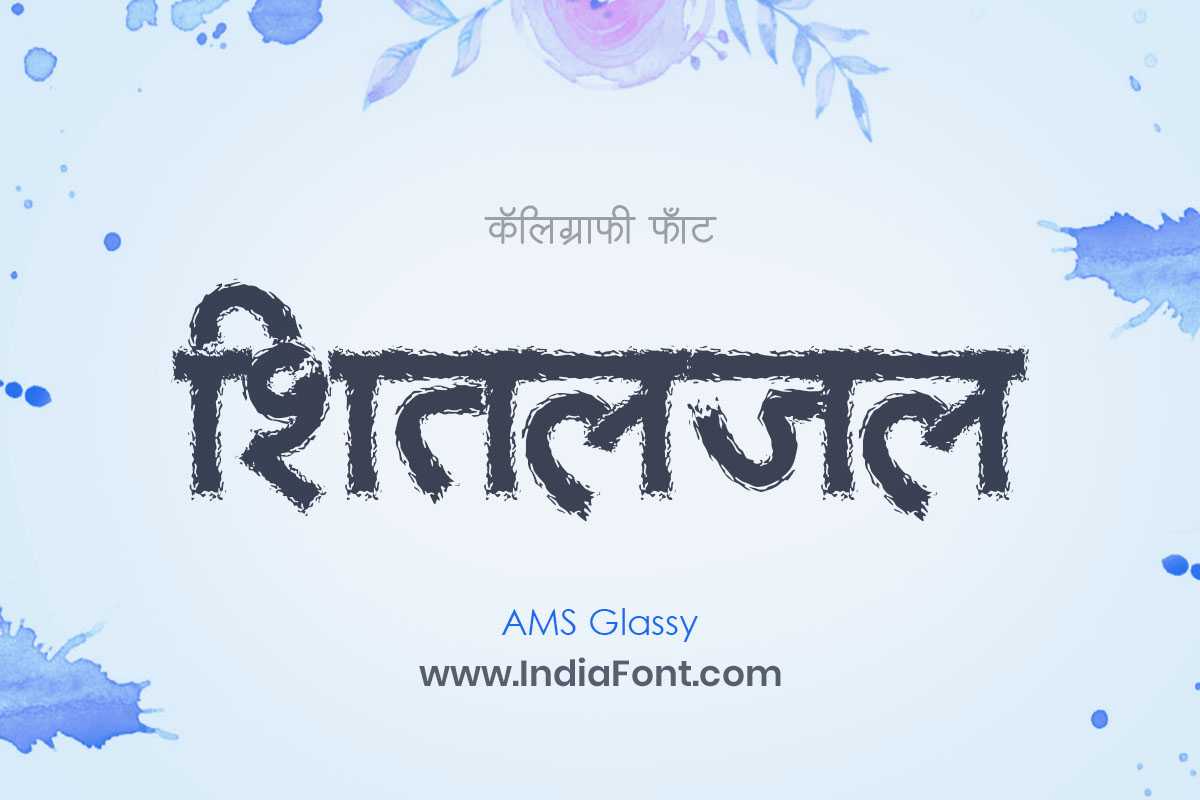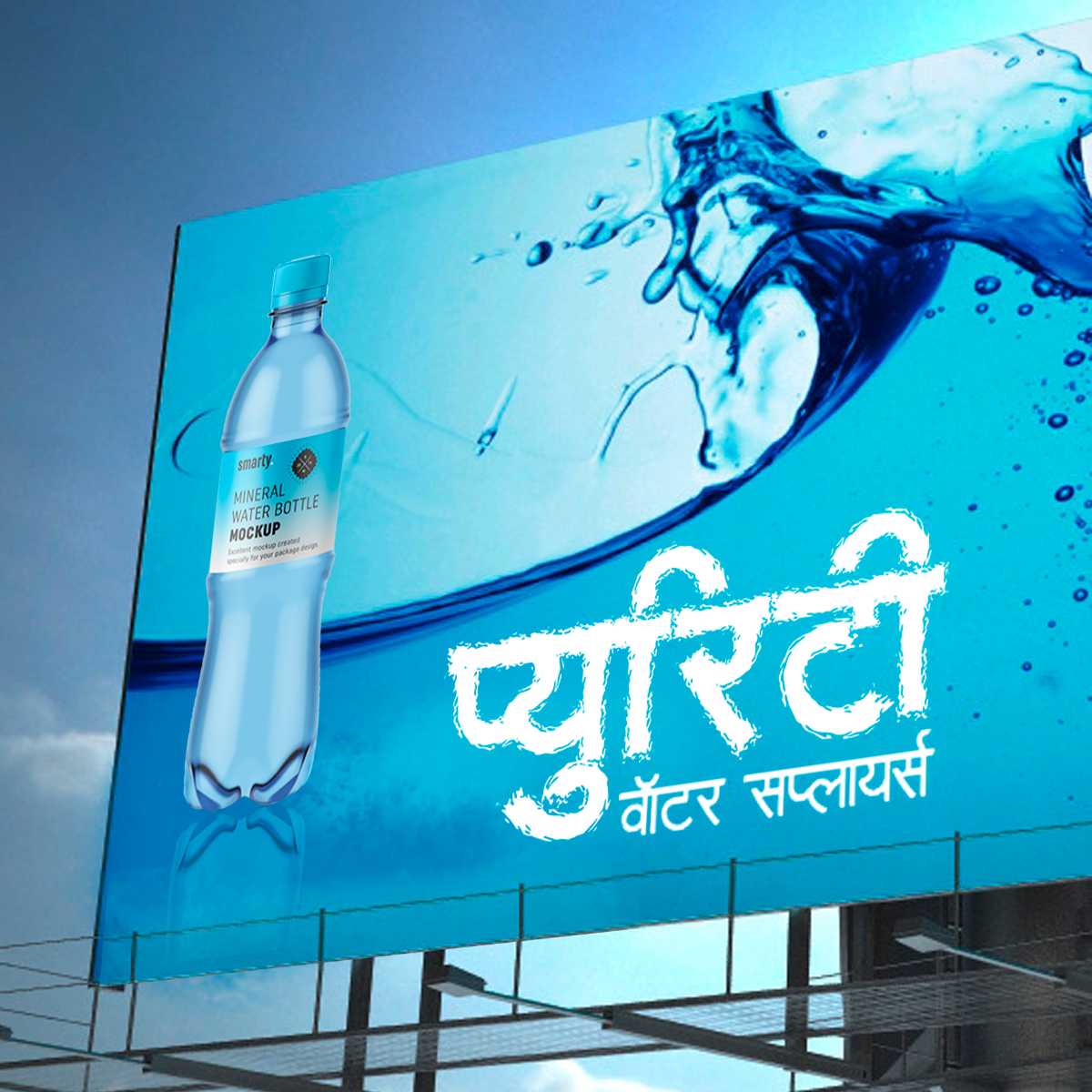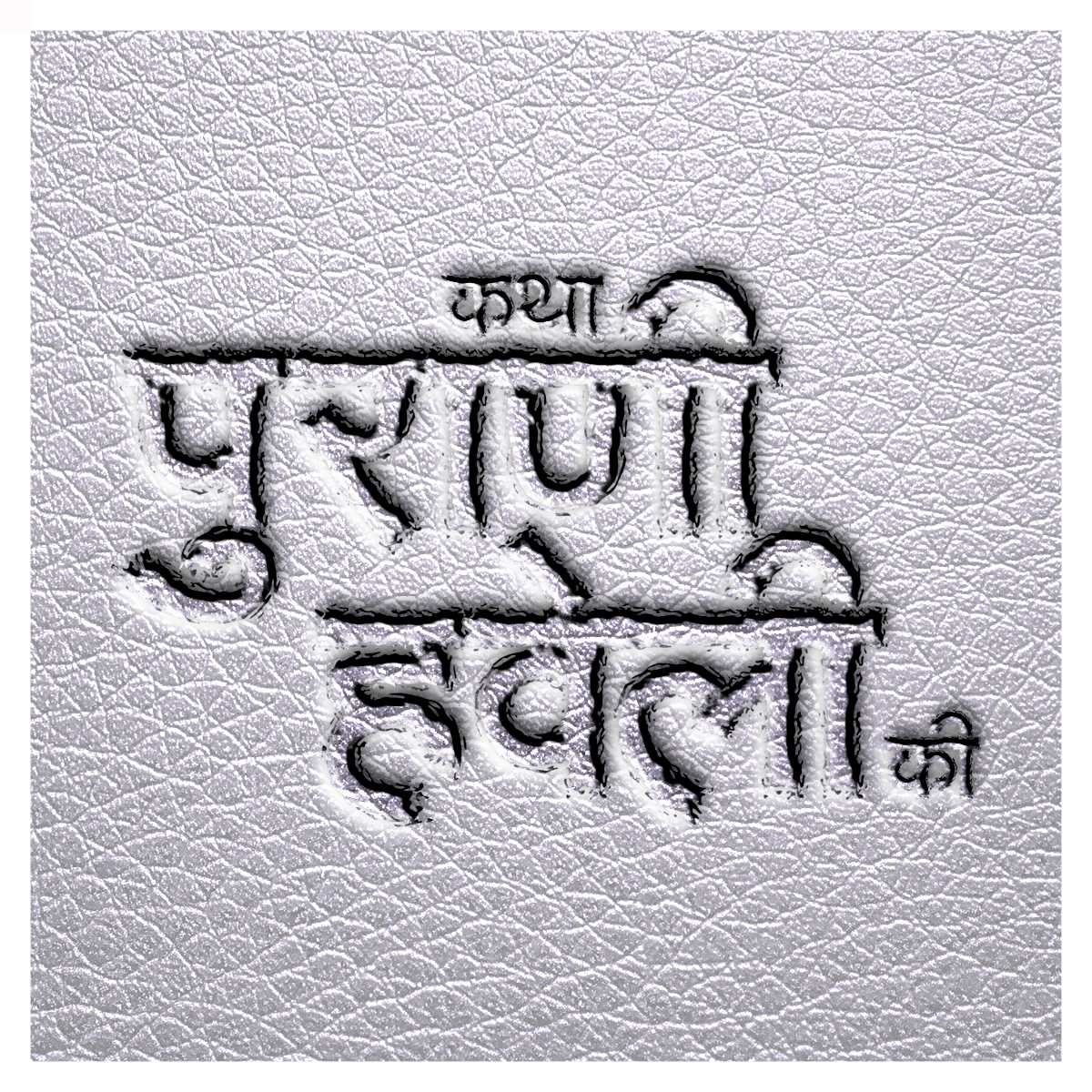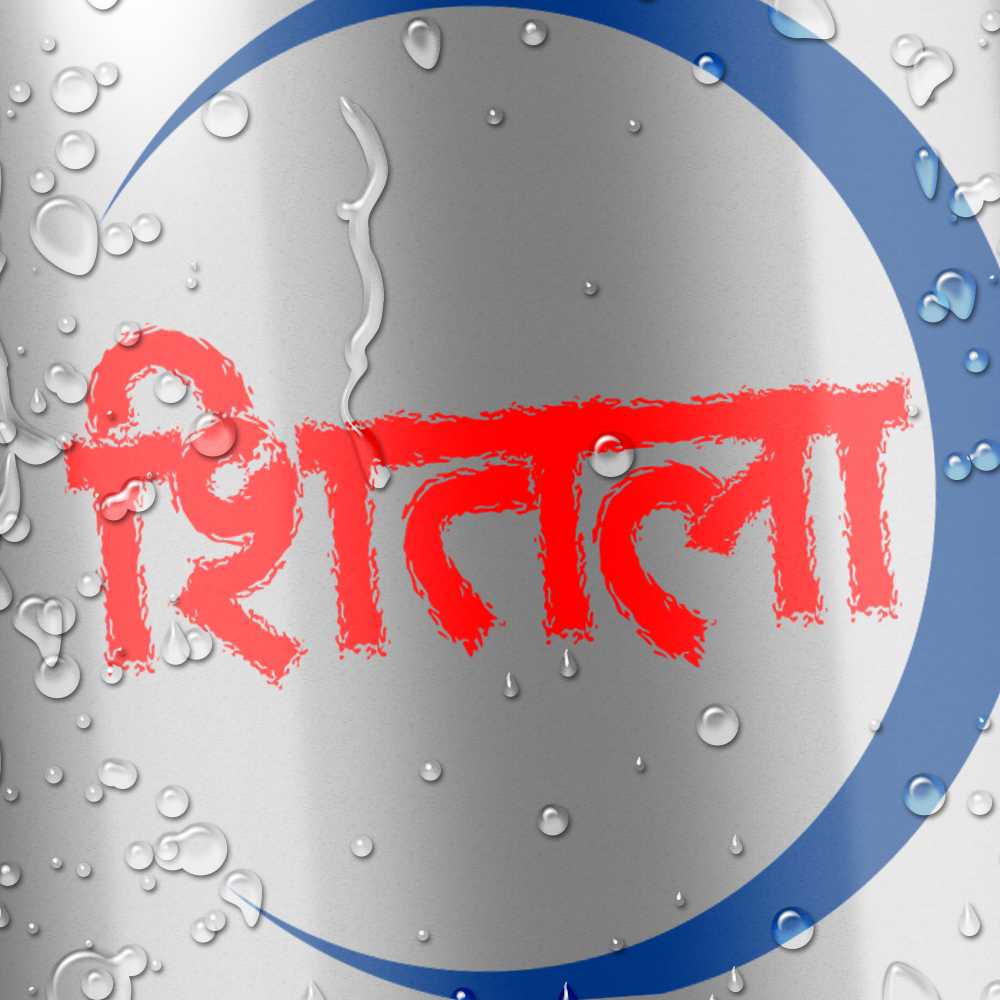
AMS Glassy
Add a touch of modern elegance with AMS Glassy, a decorative font that showcases sleek and transparent letterforms. Whether you're searching for free AMS fonts or specifically looking for AMS Glassy font download options, AMS Glassy brings a contemporary aesthetic to your designs.
About AMS Glassy Font
Add a touch of modern elegance with AMS Glassy, a decorative font that showcases sleek and transparent letterforms. Whether you're searching for free AMS fonts or specifically looking for AMS Glassy font download options, AMS Glassy brings a contemporary aesthetic to your designs. This decorative font combines elegance with functionality, making it perfect for various design applications.
AMS Glassy is a professionally crafted decorative typeface that brings clarity and style to your projects. Designed with attention to detail, it supports hindi and marathi characters flawlessly.
Whether you're working on posters, cultural-religious-designs, presentations-slides, or other creative projects, AMS Glassy delivers consistent performance across both digital and print media. This carefully designed typeface ensures readability and visual appeal in all your design work.
AMS Glassy excels in various design scenarios. Here are the most suitable applications:
About AMS Glassy Typography Style
AMS Glassy is a professionally crafted decorative font that exemplifies modern Hindi typography design. This free font is perfect for designers seeking impactful poster and display applications.
Available in 1 weight and supporting hindi, marathi scripts, AMS Glassy offers exceptional versatility for both digital and print media. Whether you're working on posters, cultural-religious-designs, presentations-slides, this carefully designed typeface ensures consistent quality and professional results across all your typography projects.